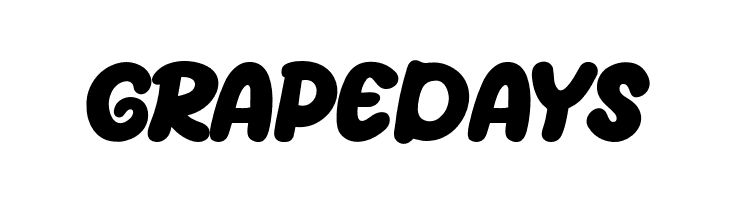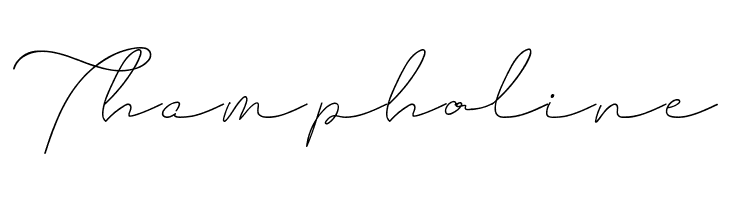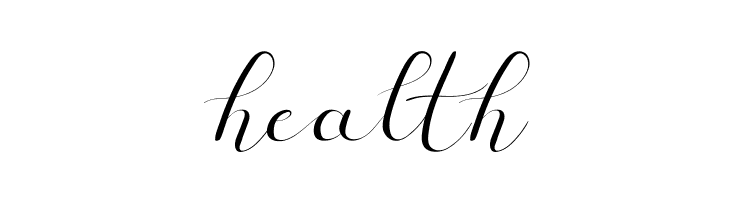
A fluid and elegant handwritten font with a personal touch.
A playful, cursive script font with a lively, handwritten style.
A modern, handwritten font with a fluid and elegant style.
A bold, angular font with a gothic influence and high contrast strokes.
A bold, hand-painted style font with an italicized, energetic appearance.
A playful, hand-drawn font with decorative swirls and a whimsical style.
A bold, hand-drawn font with a playful and energetic style.
A bold, energetic script font with fluid, cursive strokes.
A vintage, distressed font with decorative serifs and ornate details.
An intricate, Gothic-inspired decorative font with elongated, pointed serifs.